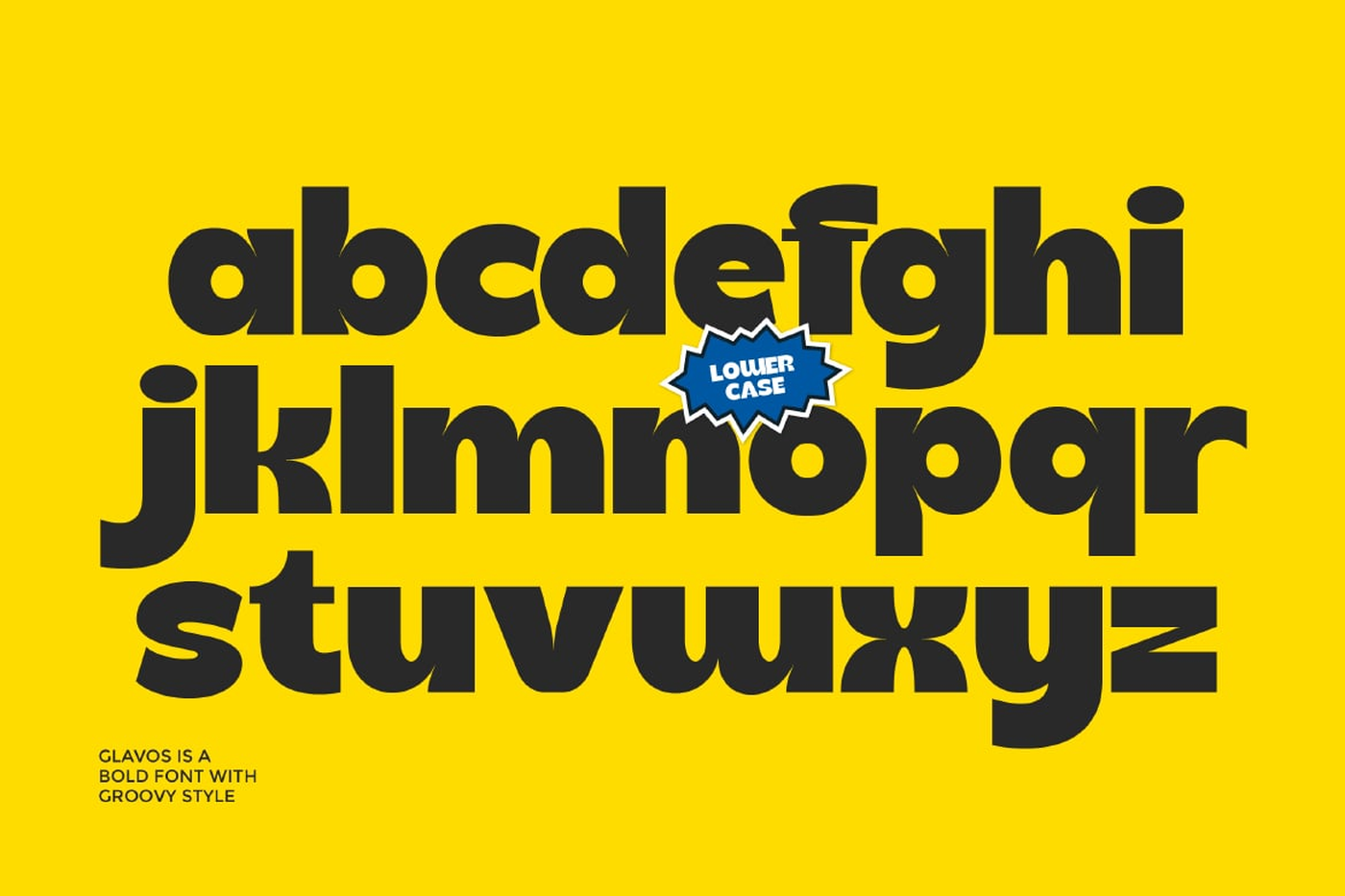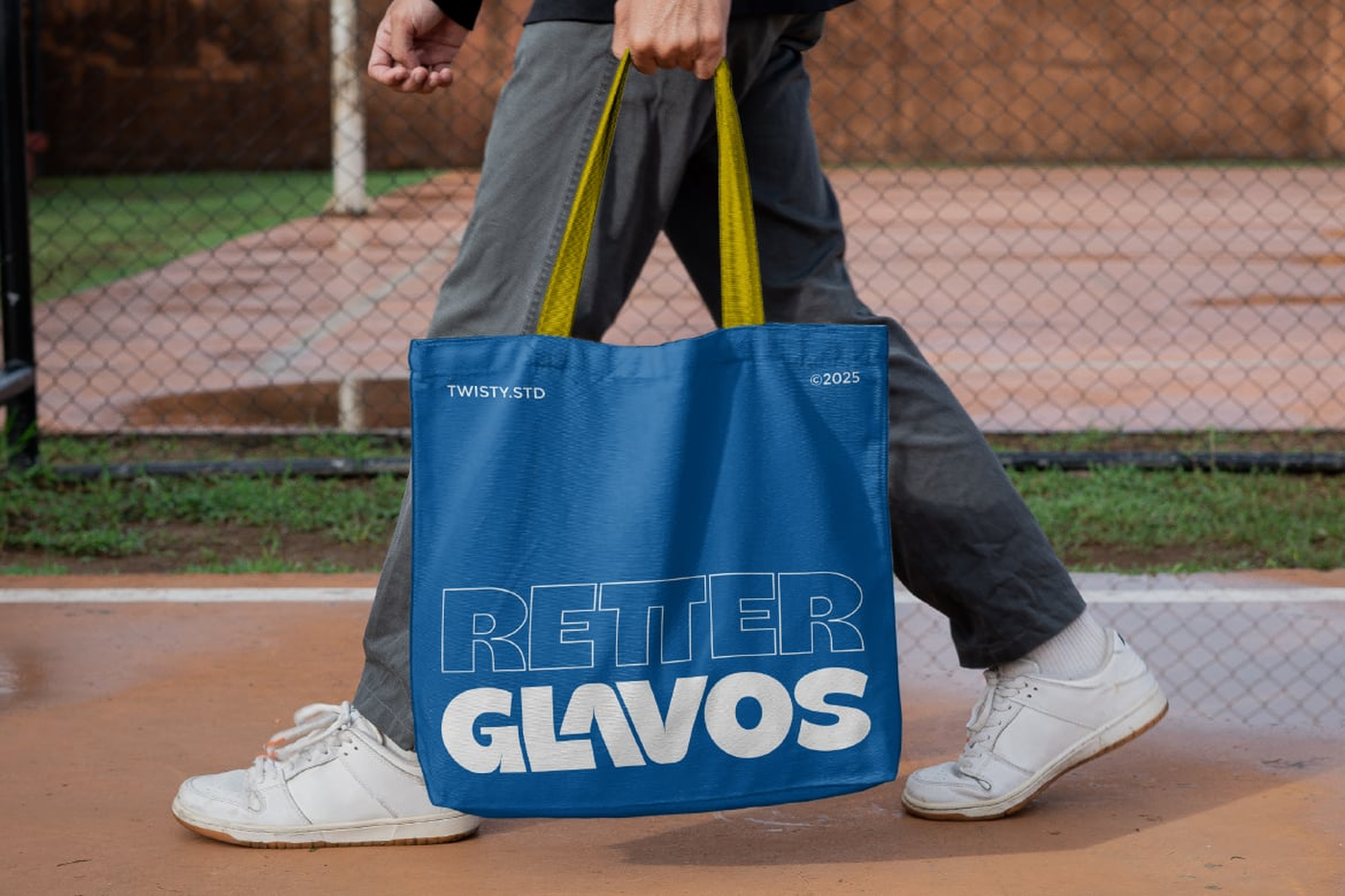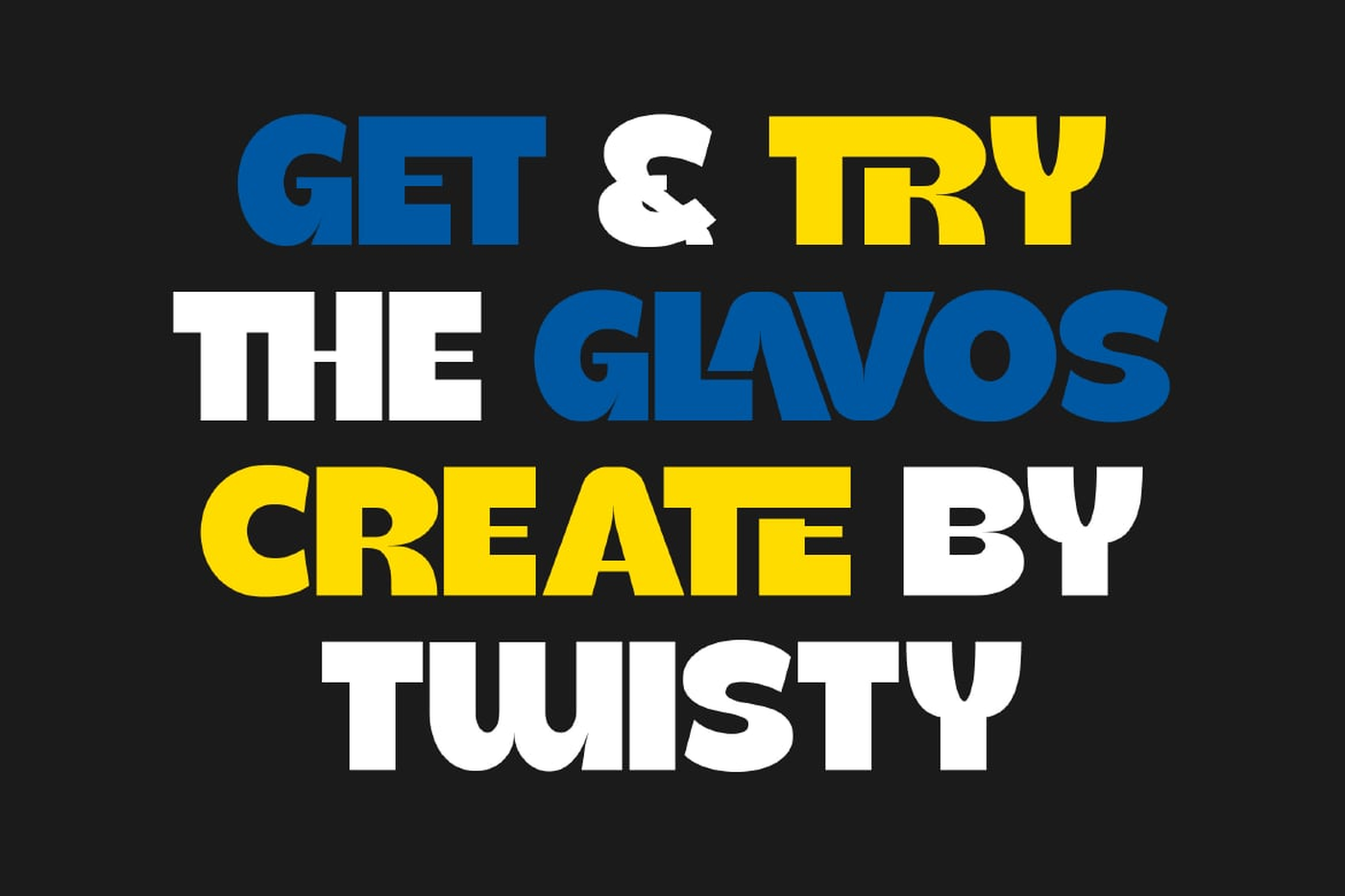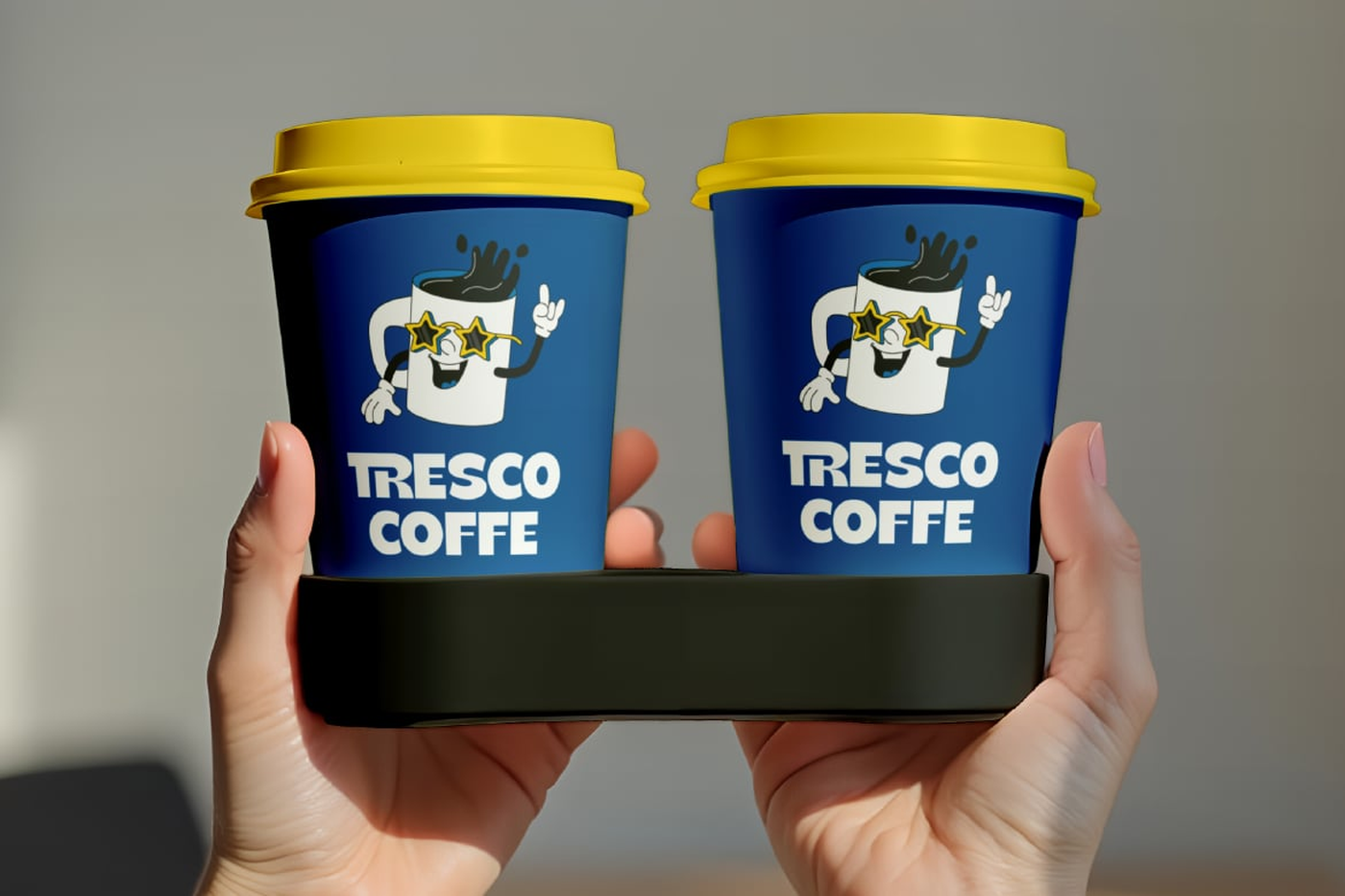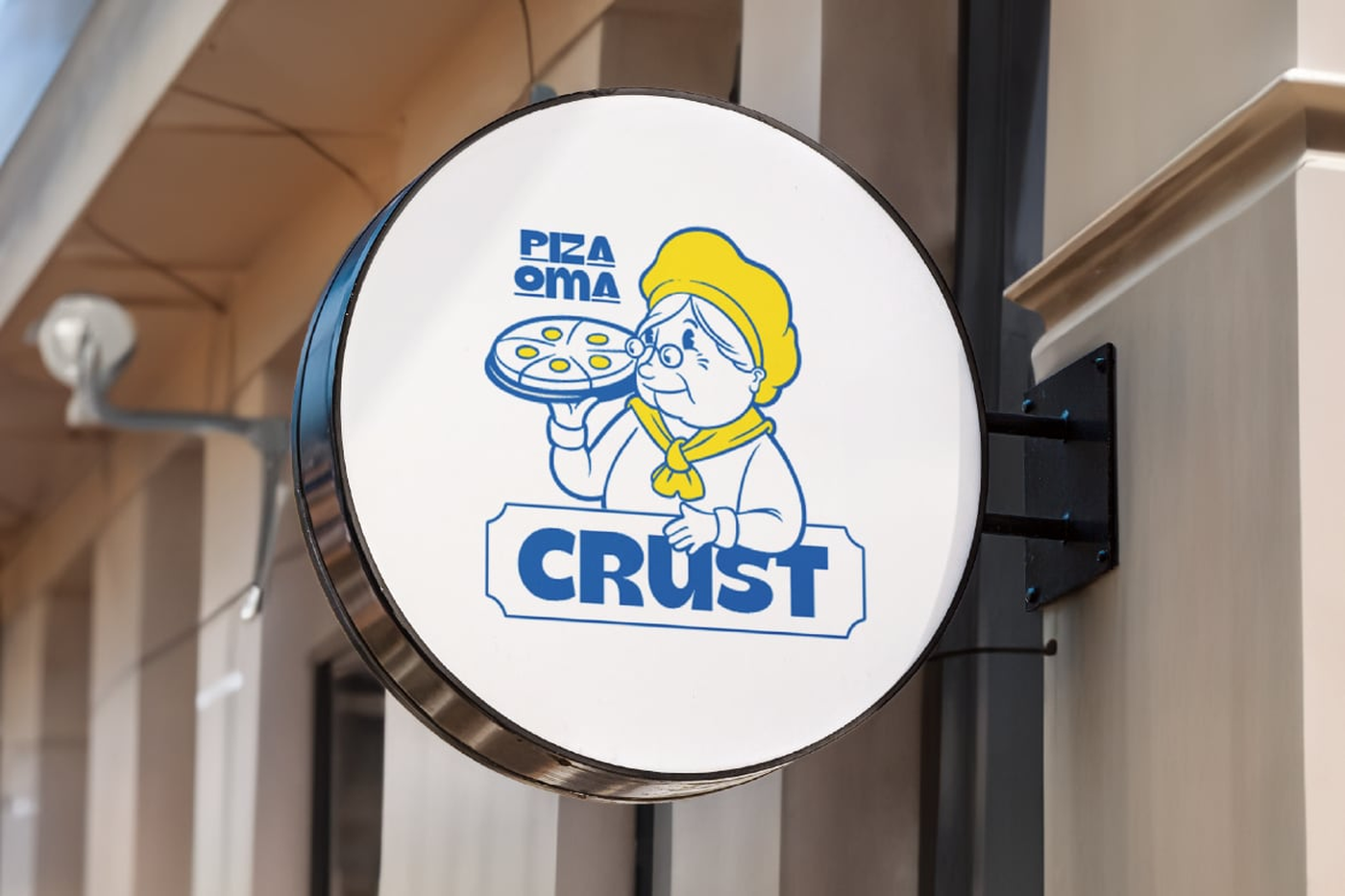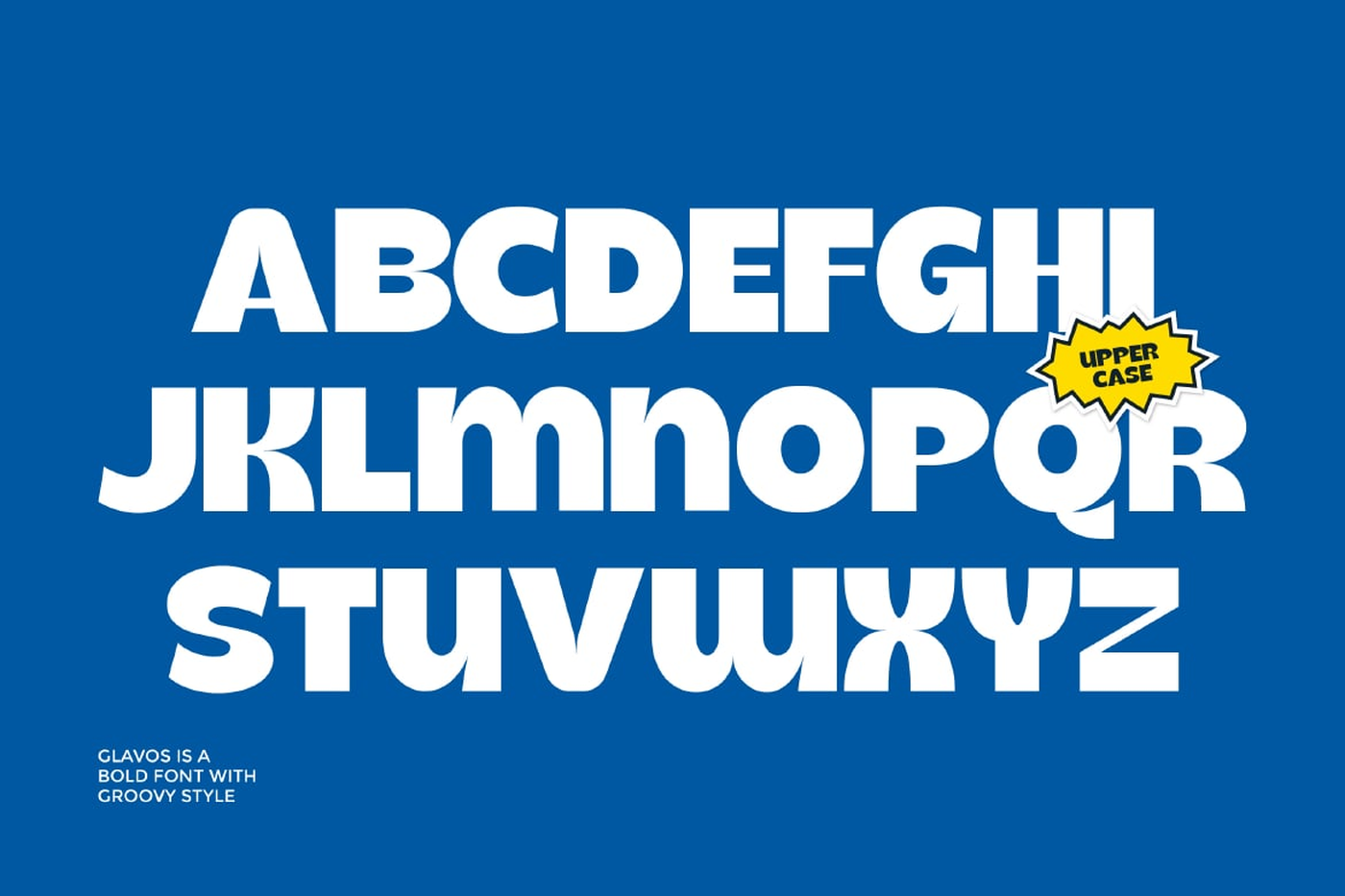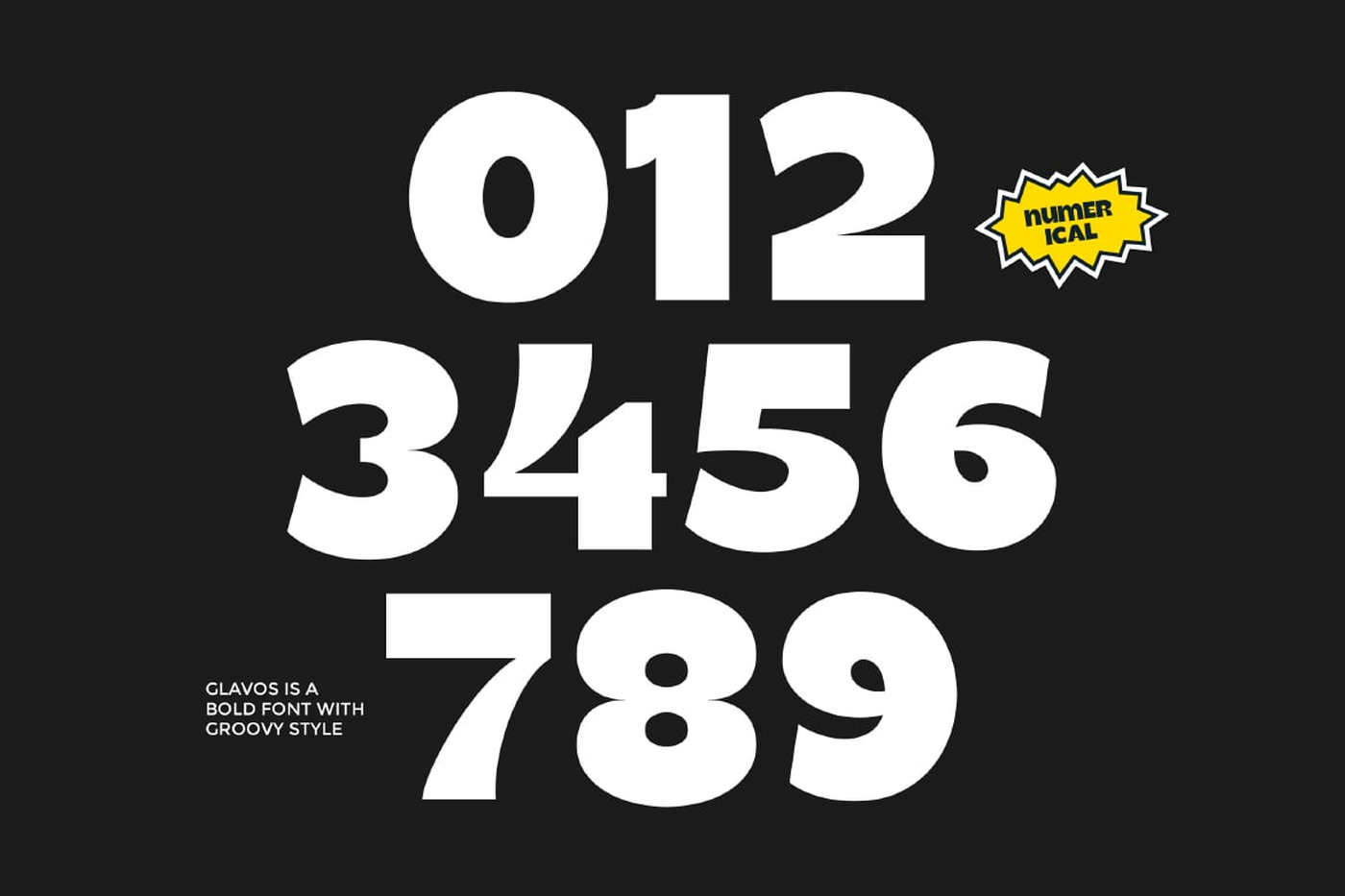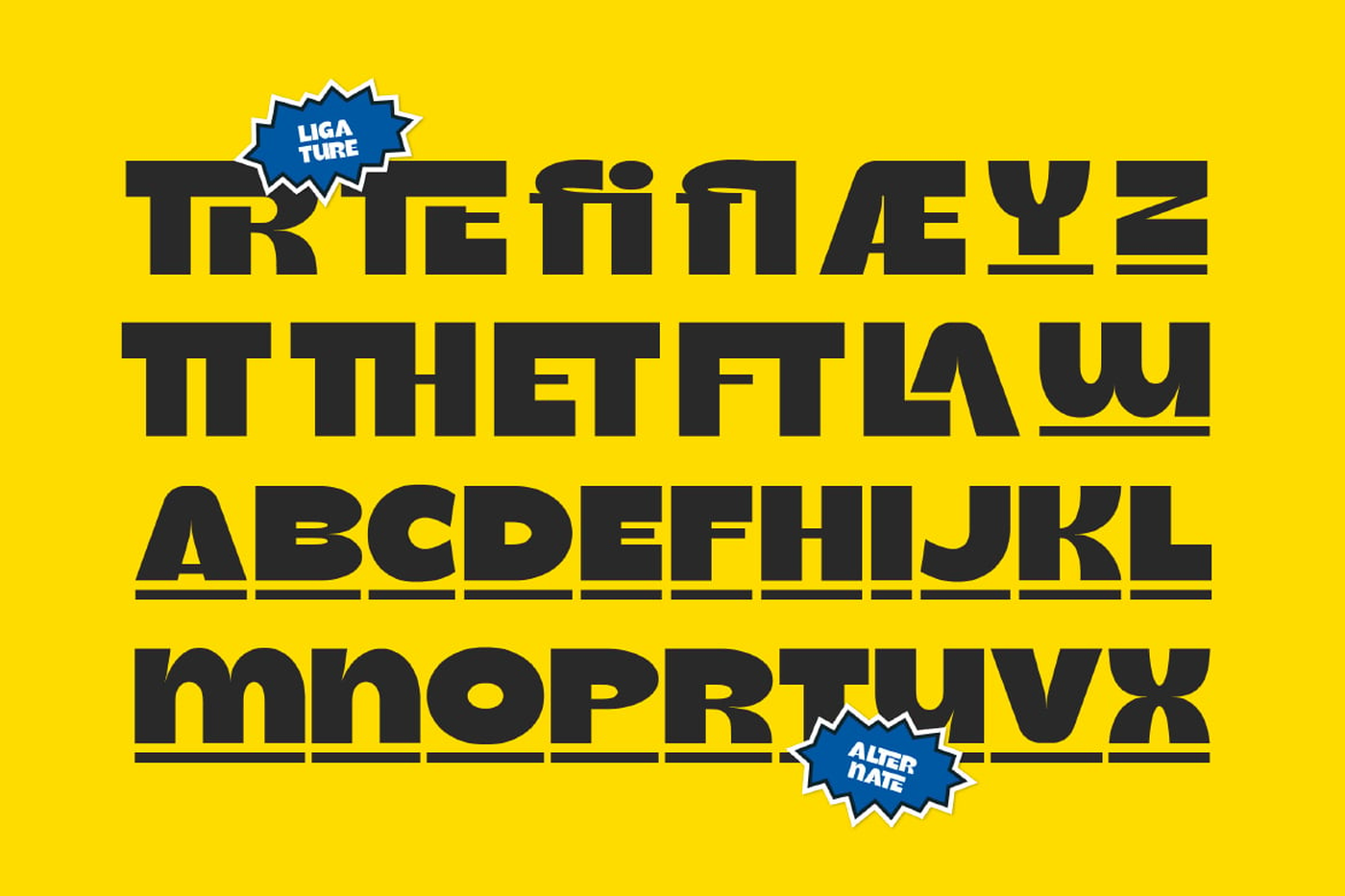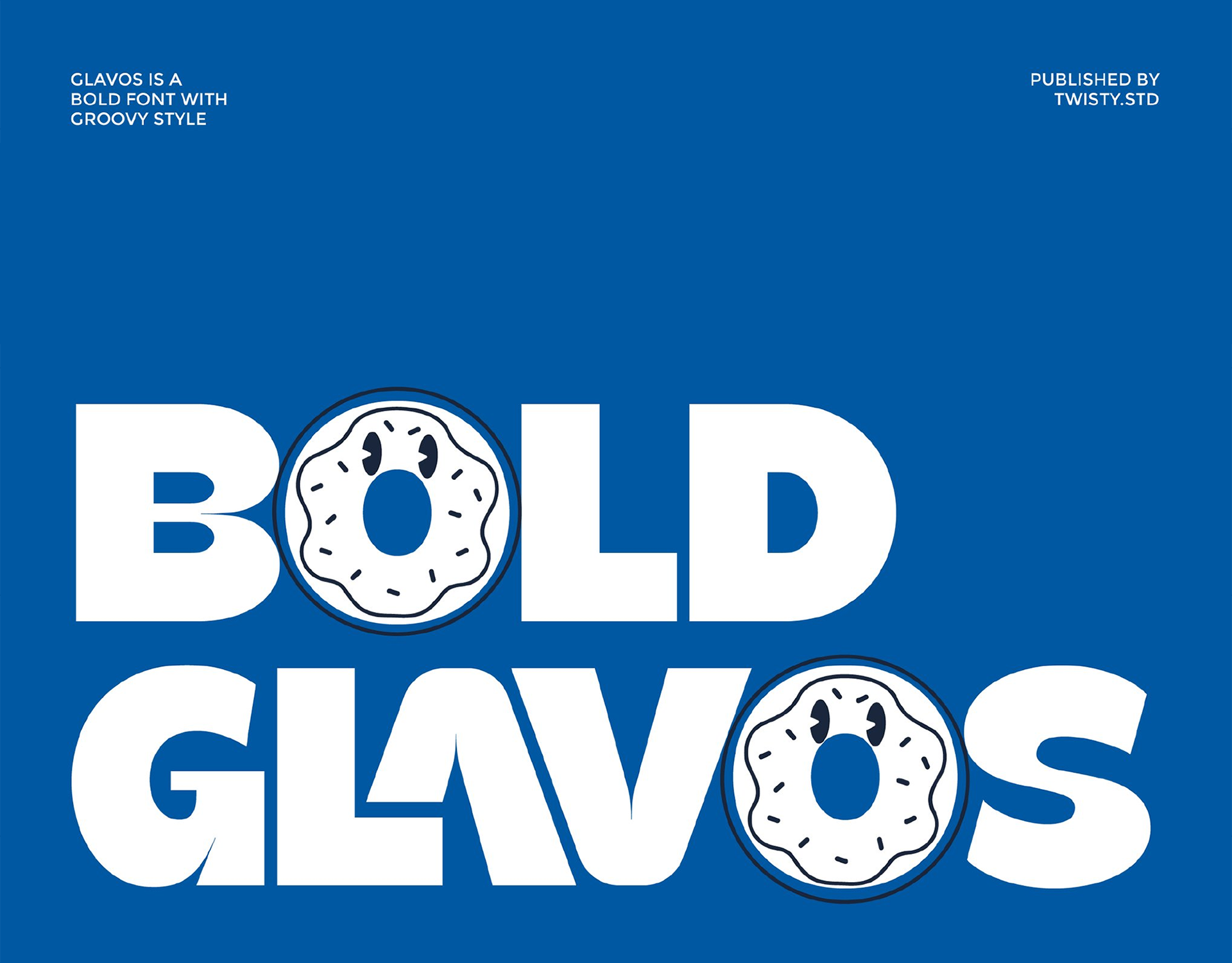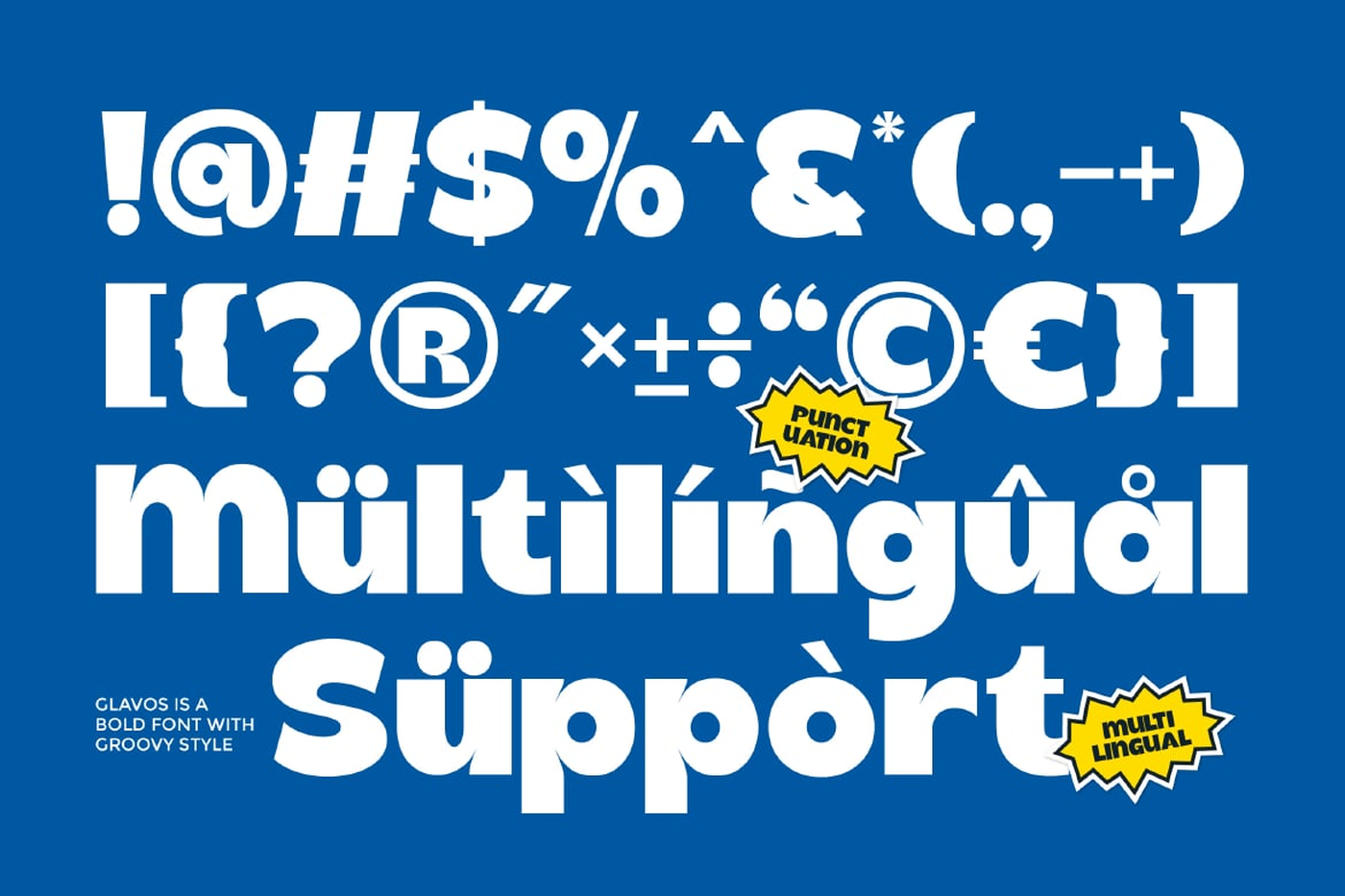
Bold Glavos - Sans Serif Font
Bold Glavos is a bold font with a fun, groovy style that delivers a strong and playful visual impact. Featuring thick letterforms with rounded shapes and friendly proportions, Bold Glavos brings a cheerful and expressive personality to any design. Perfect for logos, posters, branding, packaging, kids projects, food branding, headlines, merchandise, and creative layouts.
Designer: Twisty .std
Font: Bold Glavos